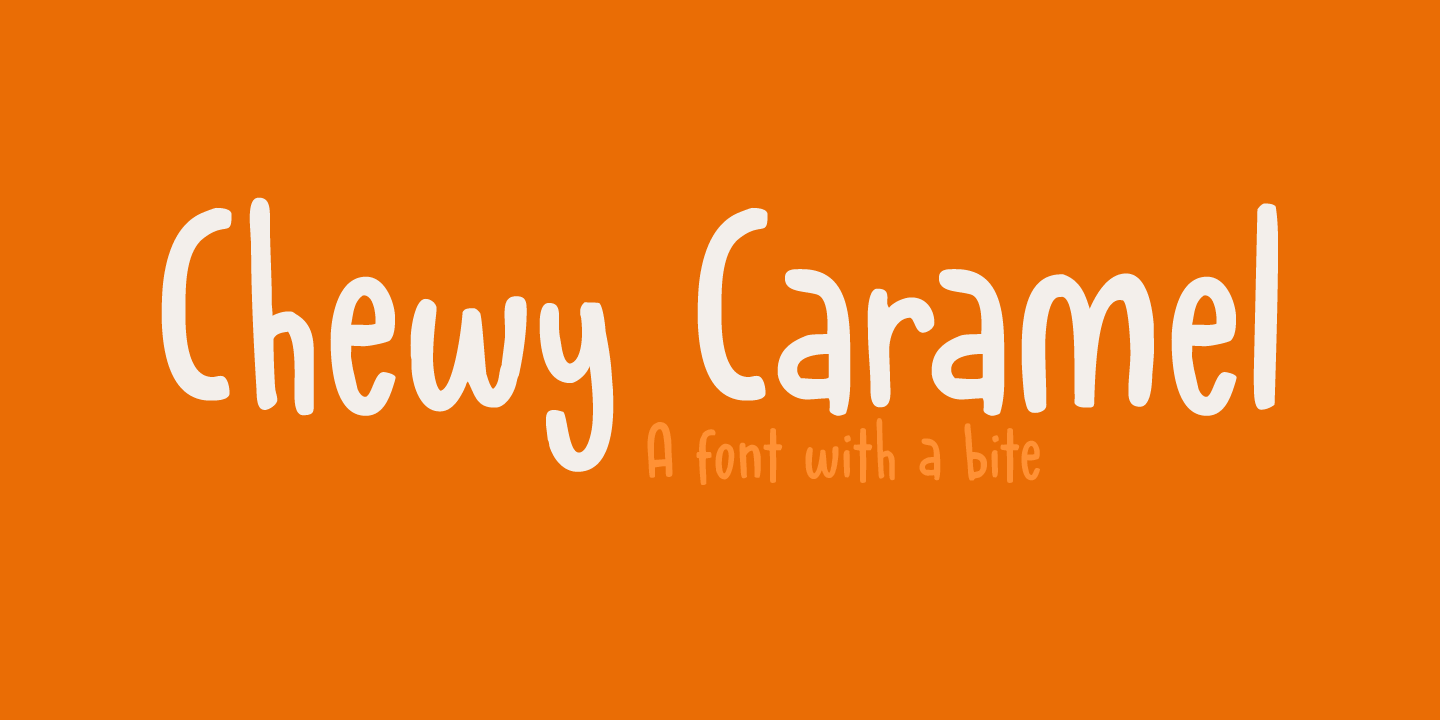
Chewy Caramel Font excels in candy store branding, sweet confectionery packaging, playful dessert shop signage, fun ice cream parlor menus, cheerful birthday party decorations, delightful children's book covers, colorful candy wrapper designs, and joyful treat shop materials. Its irresistible sweetness makes it perfect for projects celebrating sugary delights and childhood happiness.
What makes Chewy Caramel Font exciting is its deliciously irresistible ability to evoke the smooth, stretchy texture of golden caramel through playfully rounded letterforms that feel as satisfying as biting into your favorite candy. The sticky-sweet construction features flowing curves with caramel-like elasticity that captures the essence of indulgent treats and pure joy. This typeface embodies sweet indulgence and candy shop magic, making every design feel deliciously tempting and wonderfully satisfying.
Chewy Caramel Font family includes Regular, Bold, Light, Sticky, Melted, and Dripping variations, offering designers comprehensive tools for creating mouth-watering candy-inspired typographic compositions that celebrate sweet indulgence.
Indulge your creative appetite with the irresistible sweetness of Chewy Caramel Font Free Download. This delectable typeface brings candy shop magic to any design project, whether you're developing brand identities for confectionery businesses, crafting promotional materials for sweet treats, or designing graphics for children's entertainment. The font's caramel-smooth architecture and sweet presence make it essential for projects requiring delicious appeal. Chewy Caramel Font perfectly captures the essence of candy shop joy while ensuring excellent readability across all sweet applications. Its stretchy character forms and candy-inspired design language make it ideal for brands seeking to communicate pure happiness and sweet indulgence, delivering memorable results that satisfy creative cravings and connect with audiences who appreciate life's sweetest moments, childhood memories, and the simple pleasure of enjoying delicious caramel treats.